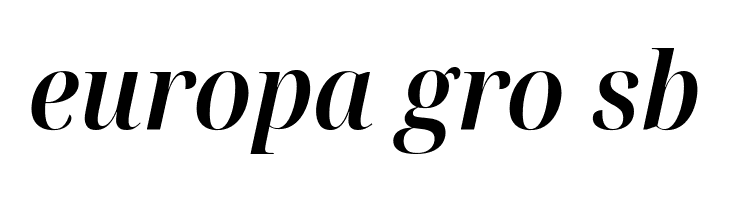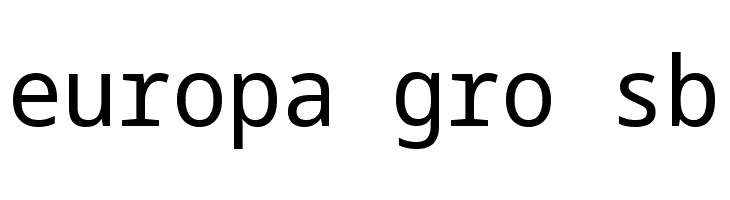
A modern, semi-condensed sans-serif font with a semi-bold weight.
A modern sans-serif font with semi-condensed proportions and a clean, professional look.
A bold, semi-condensed font with high contrast and modern styling.
A clean, modern, and semi-condensed extra light font with excellent readability.
A refined serif font with semi-condensed, semi-bold italic style.
Condensed semi-bold sans-serif font for Ethiopic script.
A clean, monospaced sans-serif font with a semi-condensed width, ideal for coding.
An elegant, extra bold, semi-condensed italic serif typeface with a modern twist.
A classic serif typeface with a semi-condensed, extra bold style, perfect for impactful headlines.
A bold, semi-condensed sans-serif font with a modern and clean design.